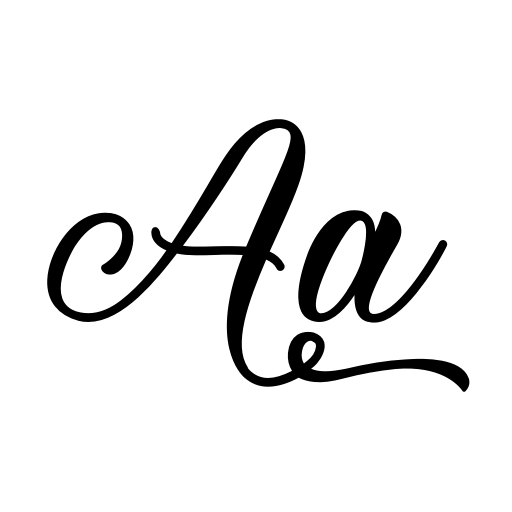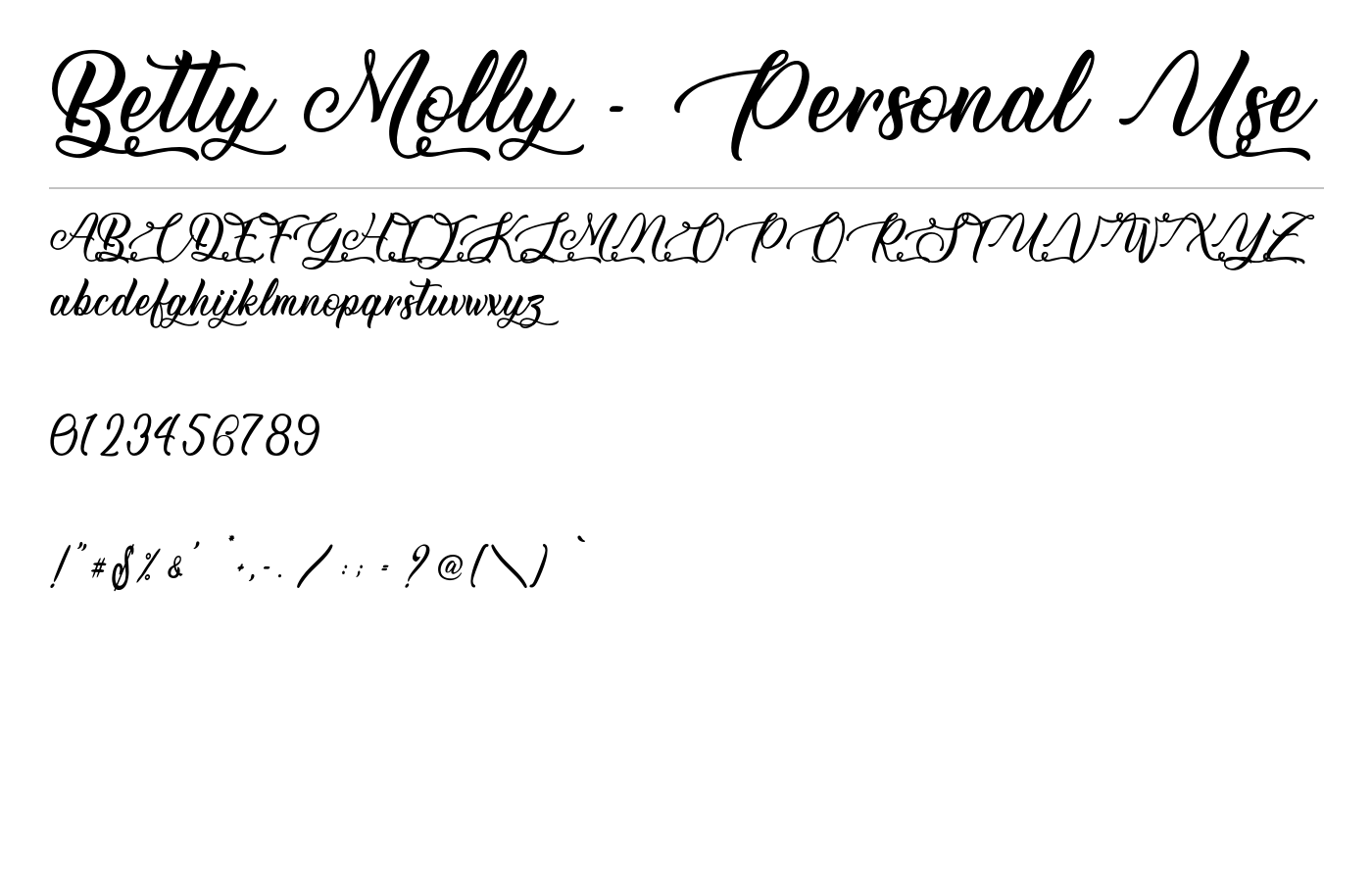
Betty Molly is a delicate script font featuring elegant, flowing letterforms with graceful loops and swashes that give it a charming, handwritten feel. Its thin strokes and refined style make it perfect for personal projects, invitations, branding, and designs that seek a feminine and sophisticated touch. This font shines in creative contexts where a light, airy, and stylish script can add a sense of warmth and elegance.
Betty Molly - Personal Use Font